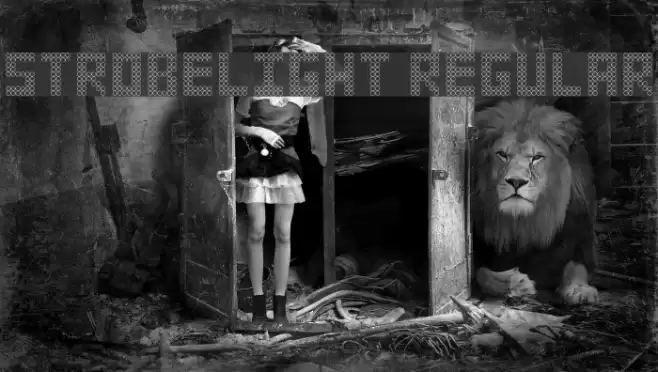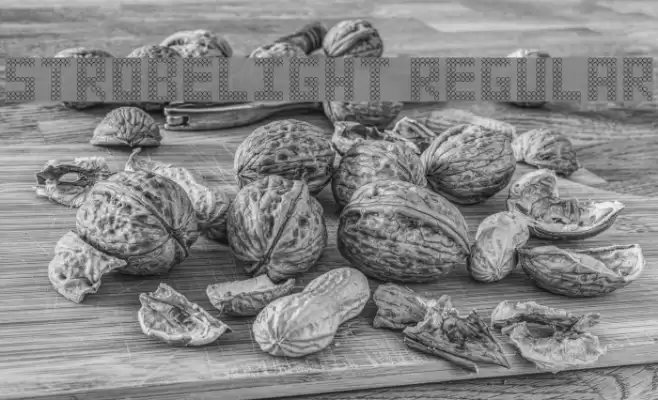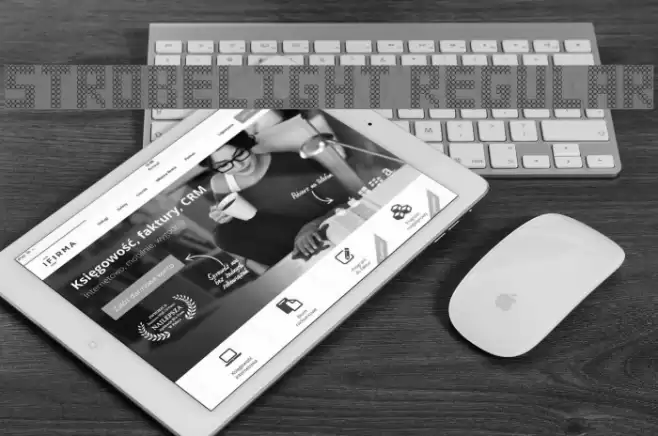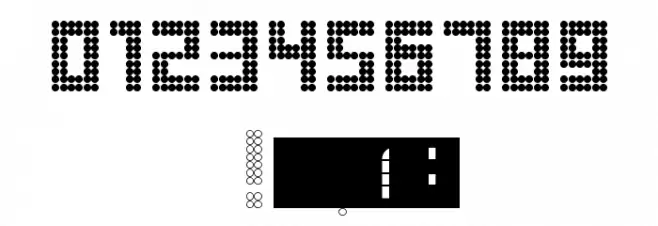
Strobelight Regular Font
Strobelight Regular Description
This font features a distinctive dot matrix design, reminiscent of digital displays and retro technology. Each character is composed of a grid of small circles, creating a pixelated effect that is both modern and nostalgic. The uniformity of the dots gives the font a structured and geometric appearance, while the open spaces within the characters add a sense of lightness. This style is particularly effective for conveying a sense of technology or futurism, making it ideal for digital-themed projects. The characters are evenly spaced, ensuring readability despite the unconventional design.
A dot matrix font with a retro digital display aesthetic from Uncategorized fonts.
- Proposed Projects: Ideal for digital displays, tech-themed posters, retro video game graphics, and futuristic branding.